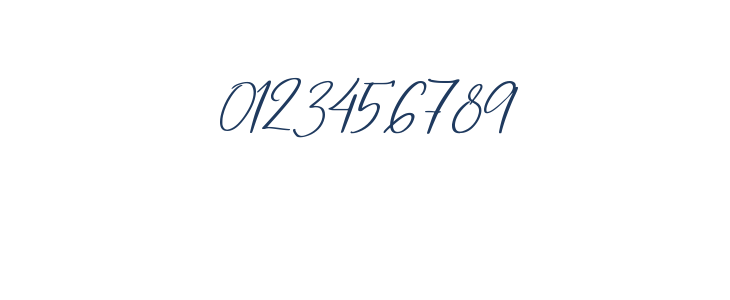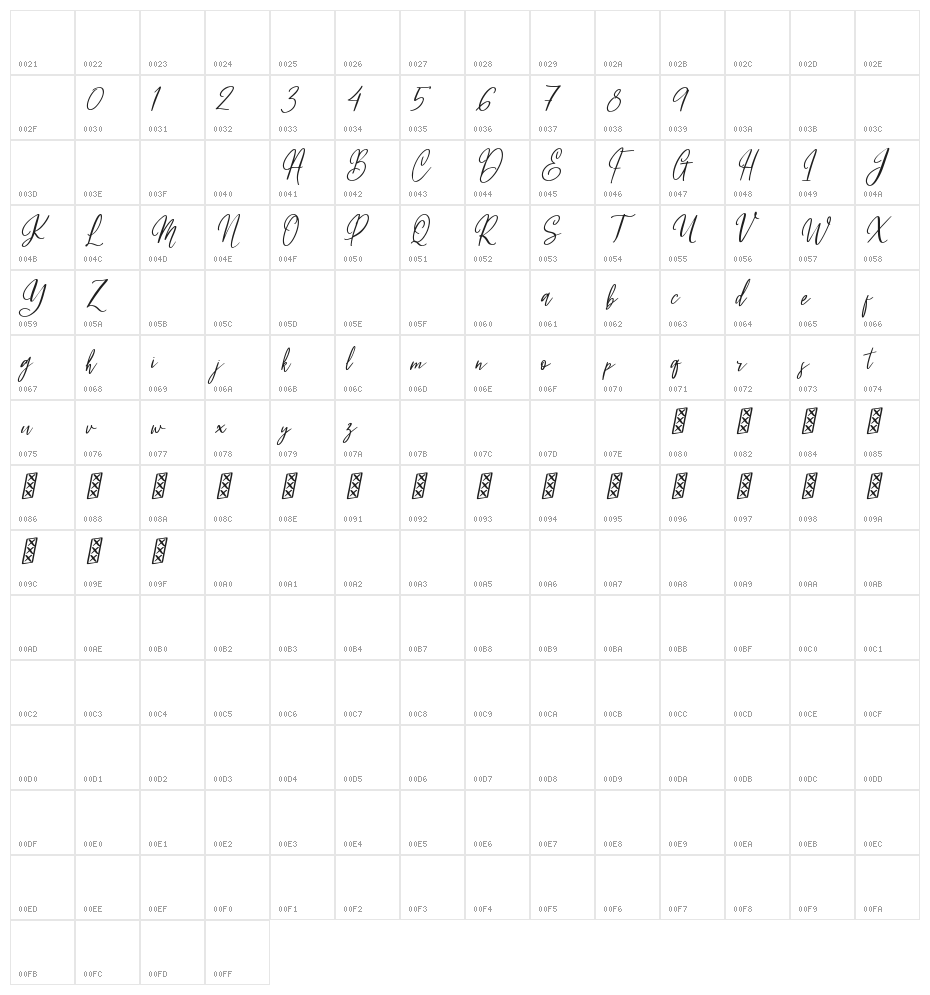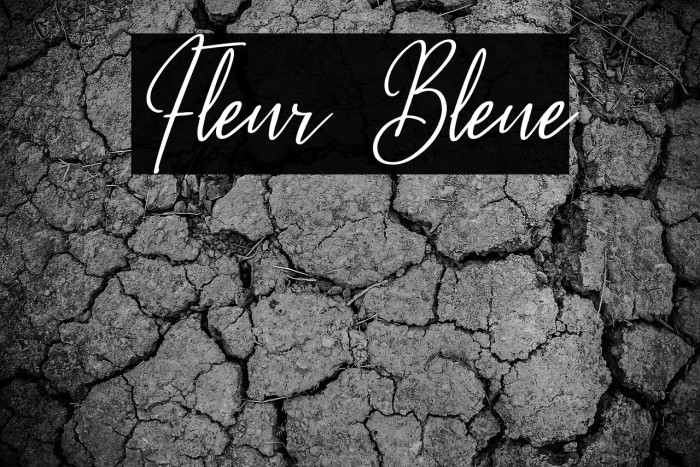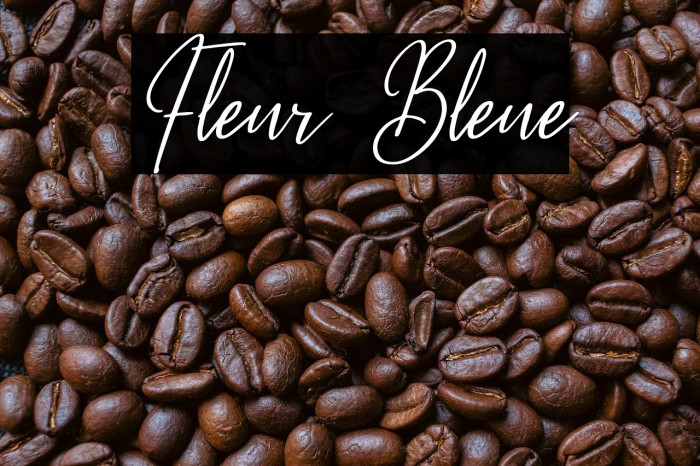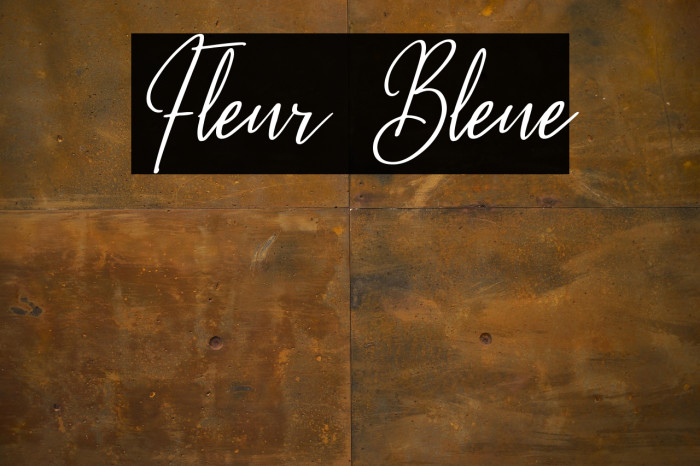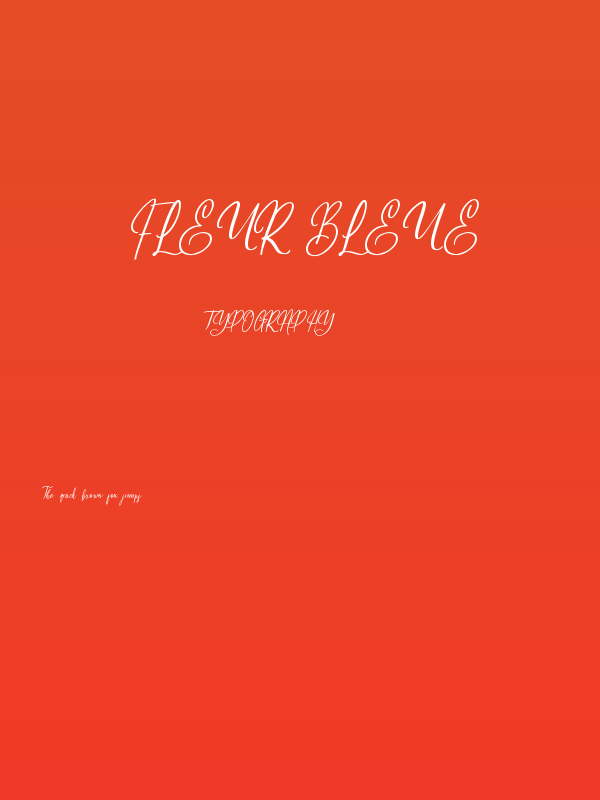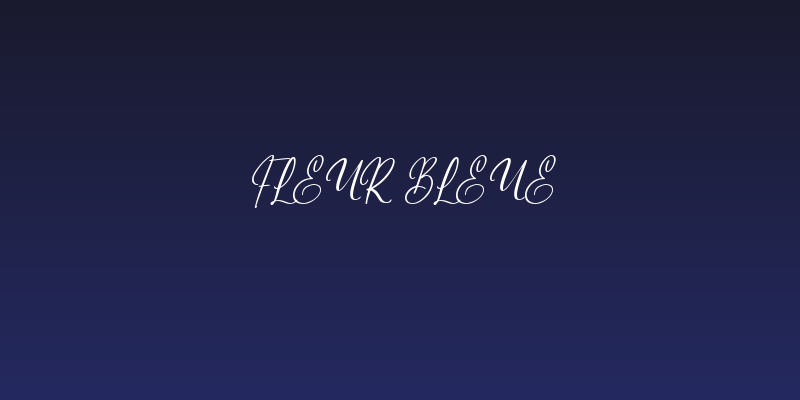
Fleur Bleue Font
Fleur Bleue Description
This elegant script font features fluid, cursive strokes that give it a sophisticated and graceful appearance. The uppercase letters are ornate and flowing, with intricate loops and swashes that add a touch of flair. The lowercase letters maintain a consistent style, with smooth connections between characters, enhancing the font's readability. The numerals are designed to match the overall script style, with a slight slant and decorative elements. This font is perfect for projects that require a touch of elegance and sophistication, such as wedding invitations, luxury branding, and high-end product packaging.
Overall StyleElegant
Use CaseLogos, Invitations, Branding
Proposed ProjectsIdeal for wedding invitations, luxury branding, and high-end product packaging.